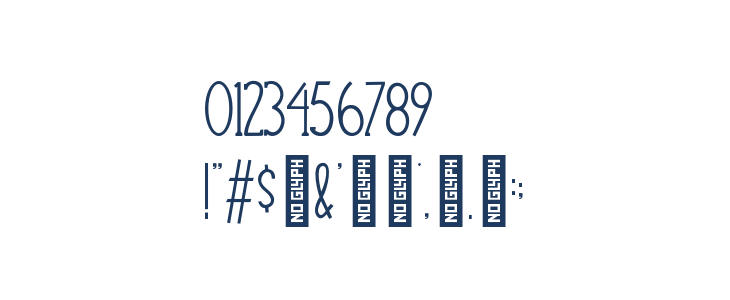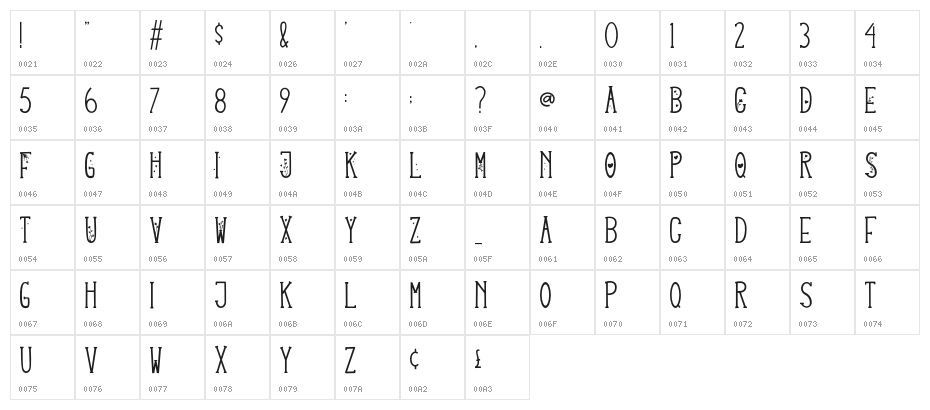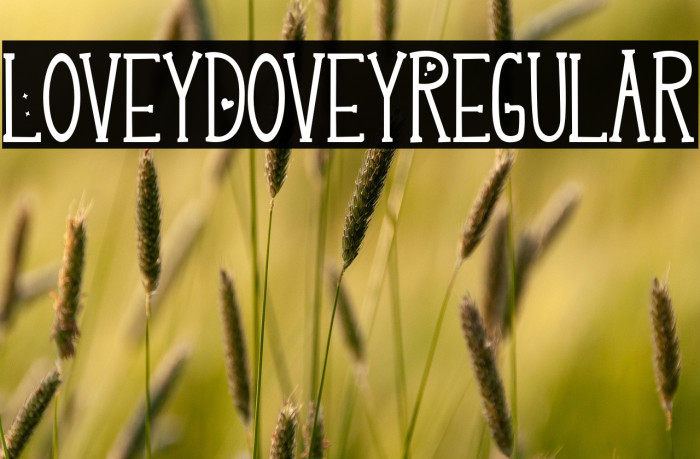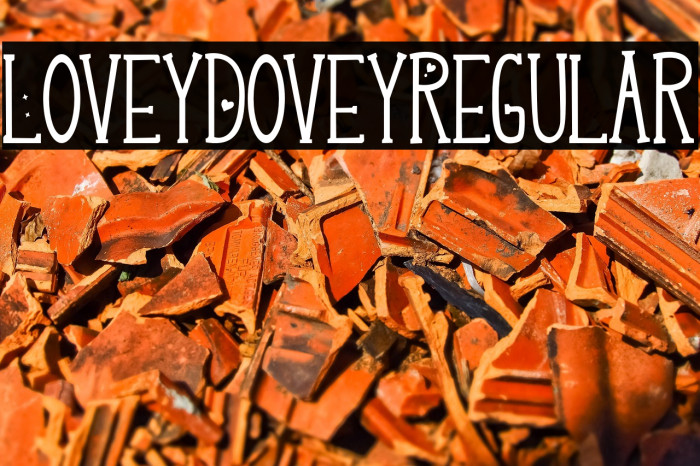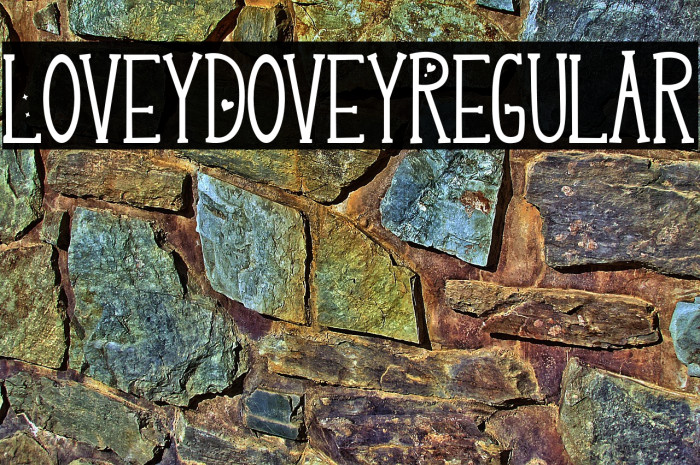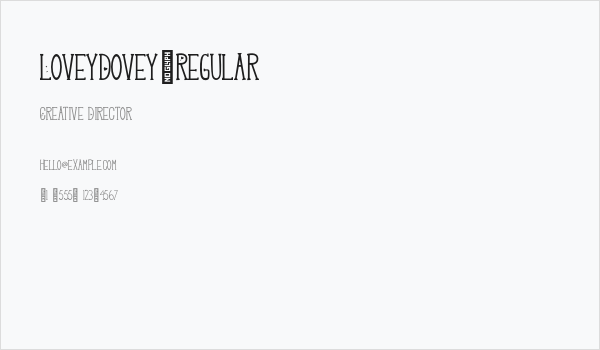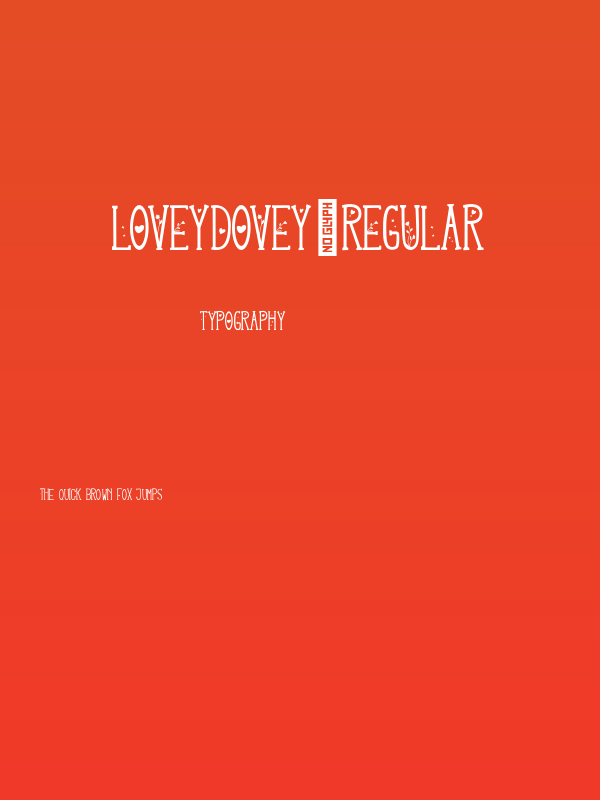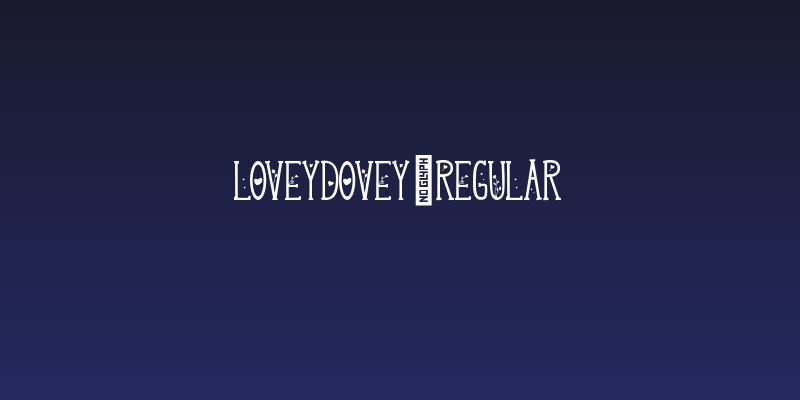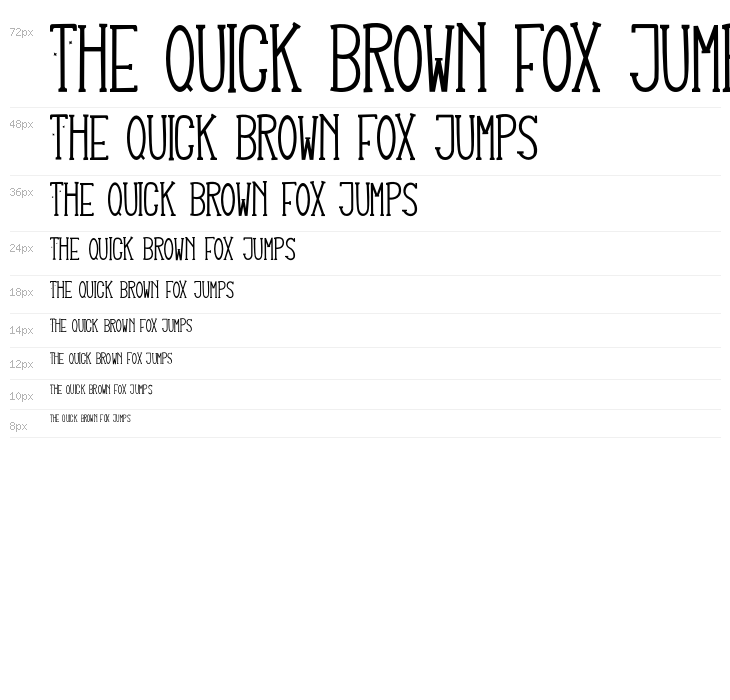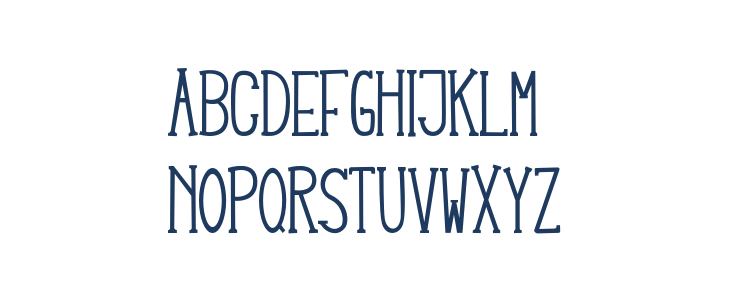
LoveyDovey-Regular Font
LoveyDovey-Regular Description
This font features a whimsical and decorative style, characterized by playful embellishments such as hearts and floral elements integrated into the letterforms. The uppercase letters are tall and narrow, with a distinct hand-drawn quality that adds a personal touch. The lowercase letters maintain a similar style, offering a cohesive look throughout. The numerals are consistent with the overall design, providing a unique and artistic flair. This font is ideal for projects that require a touch of romance or creativity, making it perfect for invitations, greeting cards, and other decorative uses.
| Use Case | Headlines, Decorative text, Invitations |
| Proposed Projects | Ideal for wedding invitations, greeting cards, romantic-themed designs, and decorative projects. |